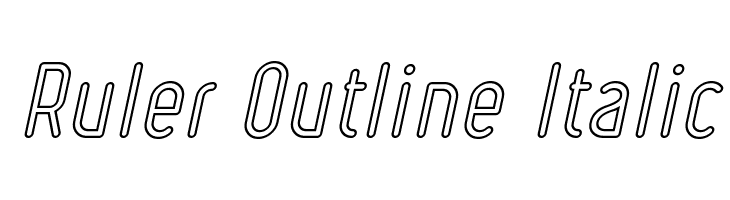
• Ogonek Italic
( Levi Szekeres - www.loremipsum.ro )
A modern, italicized font with clean lines and consistent stroke width.
• Ogonek Light Italic
( Levi Szekeres - www.loremipsum.ro )
A modern, light, and elegant italic font with sleek lines.
• Ogonek Bold
( Levi Szekeres - www.loremipsum.ro )
A bold, modern sans-serif font with strong visual impact and high legibility.
• Ogonek Unicase
( Levi Szekeres - www.loremipsum.ro )
A bold, modern sans-serif font with a unicase design and geometric structure.
• Ogonek Light
( Levi Szekeres - www.loremipsum.ro )
A modern, light sans-serif font with low contrast and balanced proportions.
• Ruler Thin Italic
( Levi Szekeres - www.loremipsum.ro )
A sleek, modern, and thin italic font with elongated letterforms.
• Ruler Thin
( Levi Szekeres - www.loremipsum.ro )
A sleek, modern font with thin, elongated letterforms and a minimalist design.
• Ruler Heavy Italic
( Levi Szekeres - www.loremipsum.ro )
A bold, italic font with a modern and dynamic style.
• Ruler Outline Italic
( Levi Szekeres - www.loremipsum.ro )
A modern, outlined italic font with a sleek and dynamic style.
• Ruler Light Italic
( Levi Szekeres - www.loremipsum.ro )
A modern, light, and italicized font with a sleek and minimalist design.